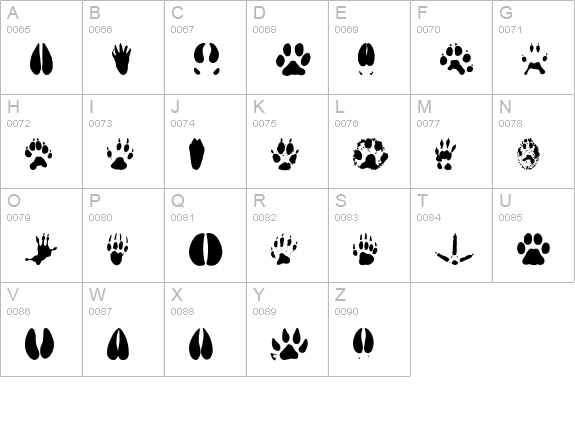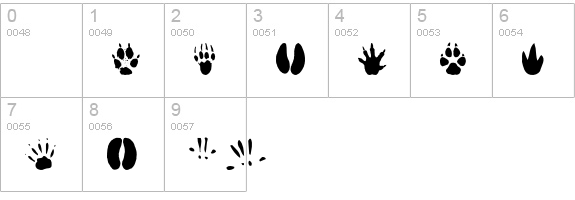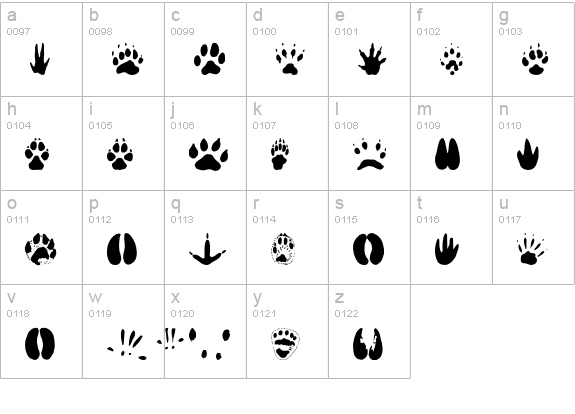
AnimalTracks Font Details
Introducing AnimalTracks font, a unique and playful typeface that captures the essence of nature and wildlife. This whimsical font is perfect for adding a touch of adventure to your designs, whether you're working on a project related to animals, nature, or outdoor activities. With its charming hand-drawn style, AnimalTracks font features a variety of animal footprints and tracks that will bring a sense of curiosity and wonder to your work. Each letter is carefully crafted to resemble the footprints of different creatures, making this font a delightful choice for creating eye-catching designs that stand out from the crowd. The best part? AnimalTracks font is available for free download at FontsMarket.com. So go ahead and unleash your creativity with this fun and captivating font that is sure to leave a lasting impression on your audience. Let your imagination run wild with AnimalTracks font and bring a touch of the great outdoors to your next project.